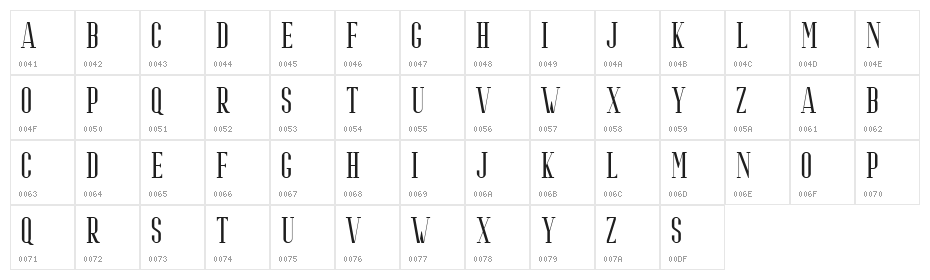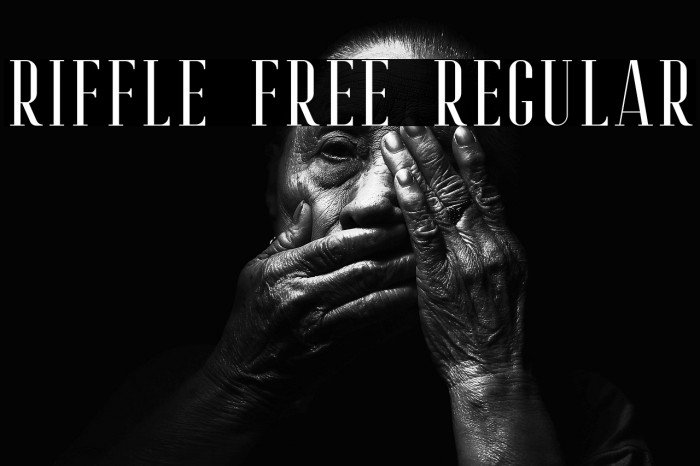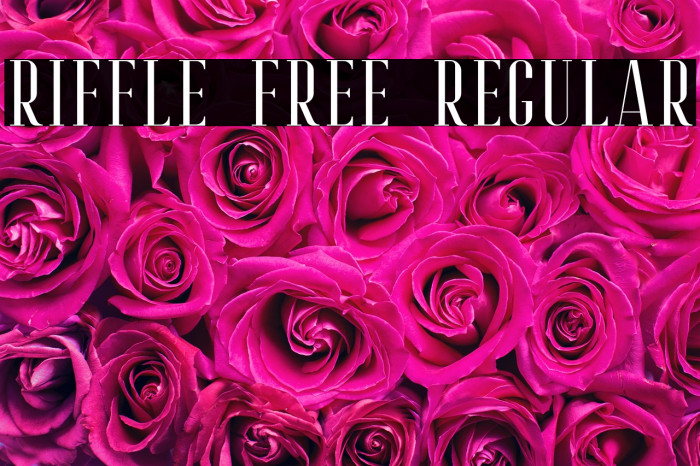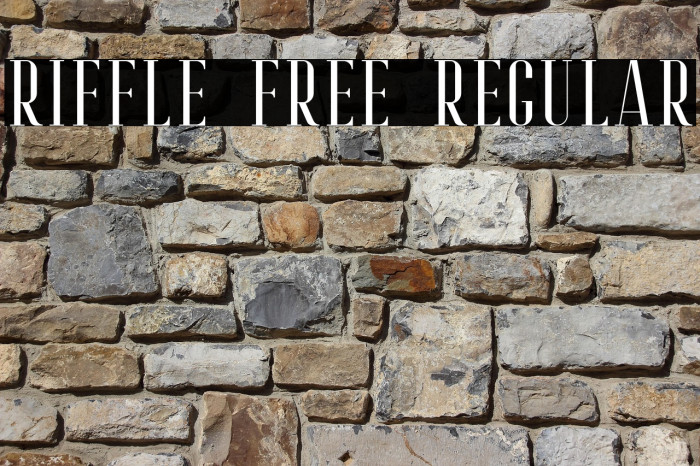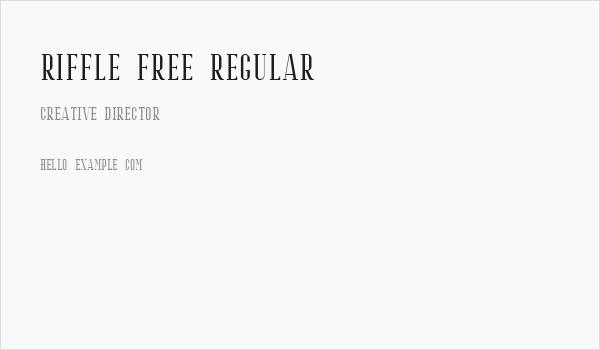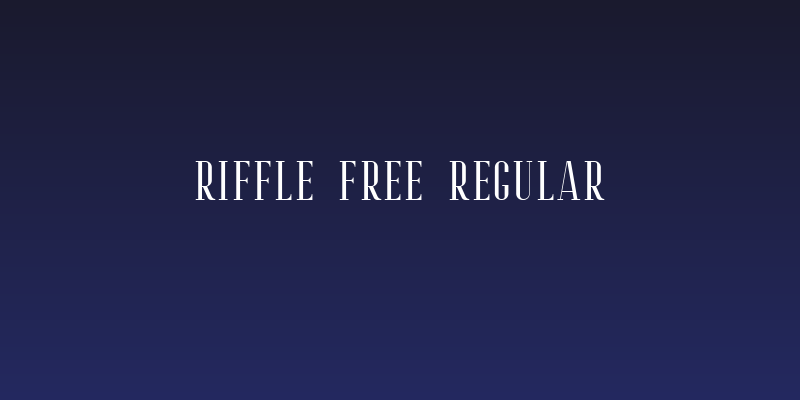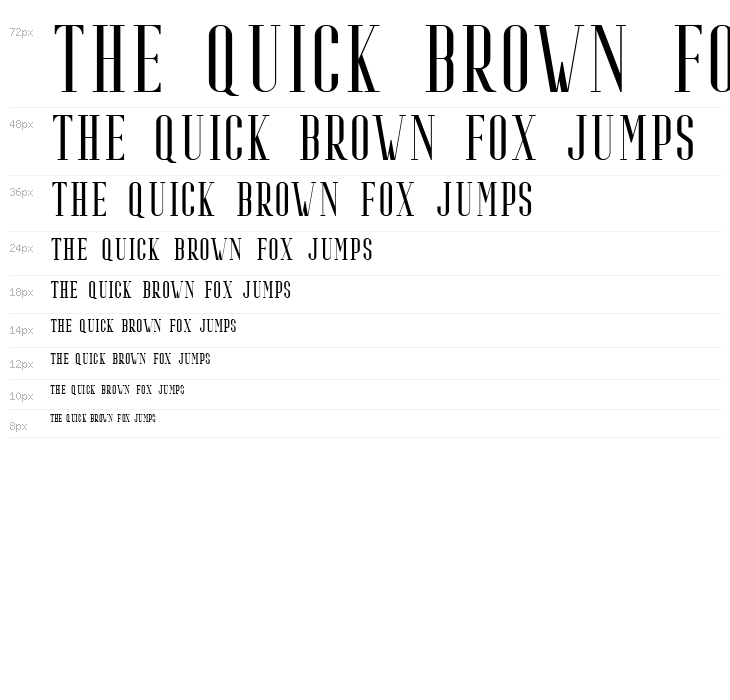
Riffle Free Regular Font
Riffle Free Regular Description
This font features a tall, elegant design with thin, elongated serifs that give it a sophisticated and classic appearance. The vertical strokes are prominent, while the horizontal strokes are much thinner, creating a high contrast that enhances readability and visual interest. The characters are evenly spaced, providing a clean and organized look. This typeface exudes a sense of formality and refinement, making it suitable for upscale branding and editorial design. Its timeless style is versatile, allowing it to be used in a variety of contexts where elegance and clarity are desired.
| Proposed Projects | Ideal for luxury branding, magazine headlines, wedding invitations, and formal event programs. |